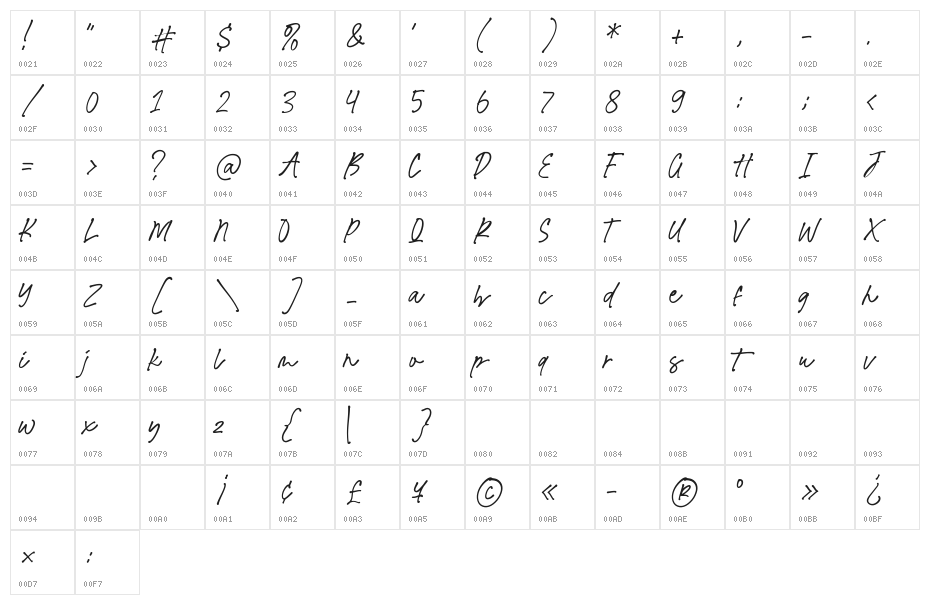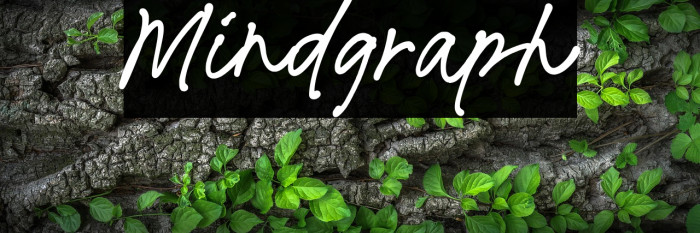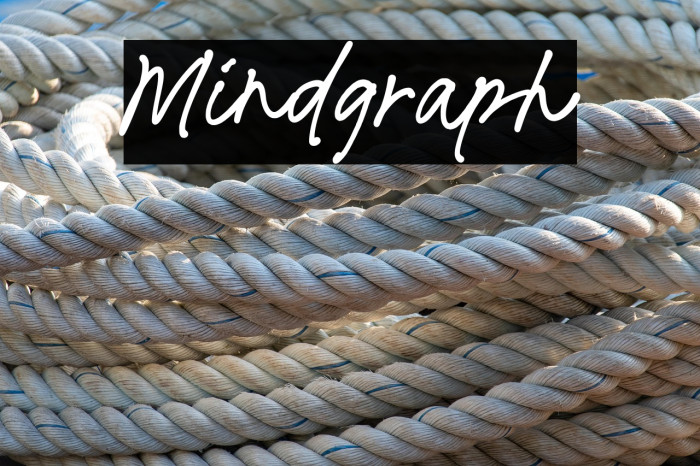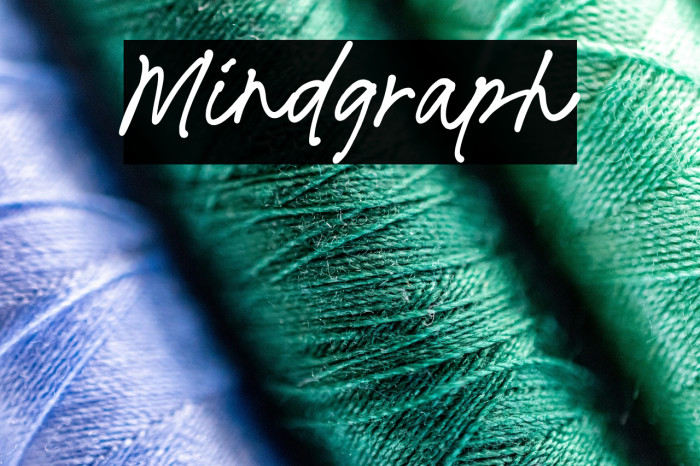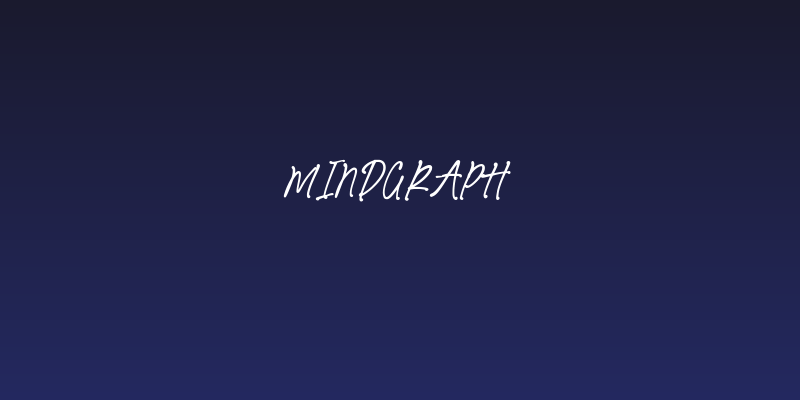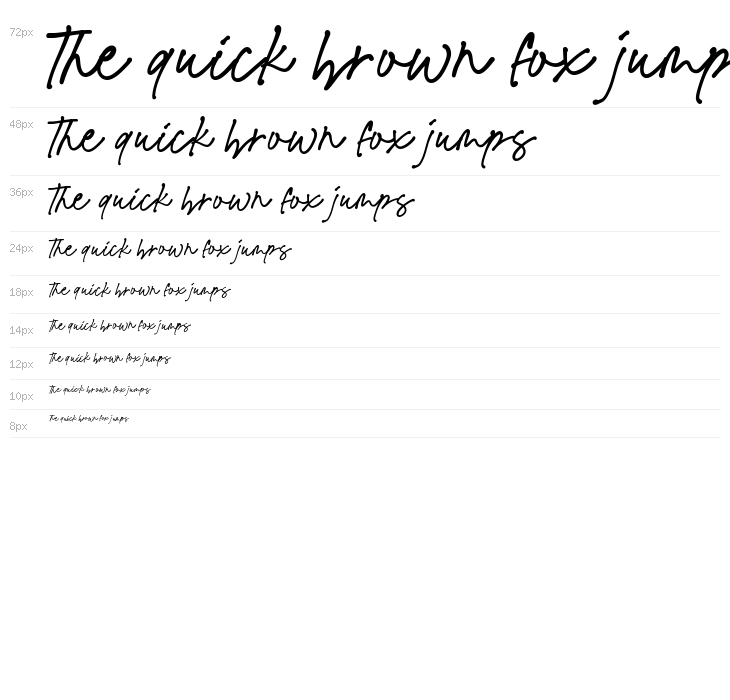
Mindgraph Font
Mindgraph Description
This font exudes a casual, handwritten style with a lively and dynamic appearance. The characters are slightly slanted, giving it an informal and personal touch. The strokes are fluid and connected, reminiscent of natural handwriting. Each letter has a unique flair, with varying stroke thickness that adds to its charm. The uppercase letters are bold and prominent, while the lowercase letters maintain a consistent flow. The numbers are clear and legible, matching the overall style. Special characters are creatively integrated, maintaining the font's cohesive look.
| Overall Style | Casual, Informal |
| Use Case | Invitations, Greeting cards, Personal notes |
| Proposed Projects | Ideal for personal notes, invitations, greeting cards, and creative projects that require a personal, informal touch. |